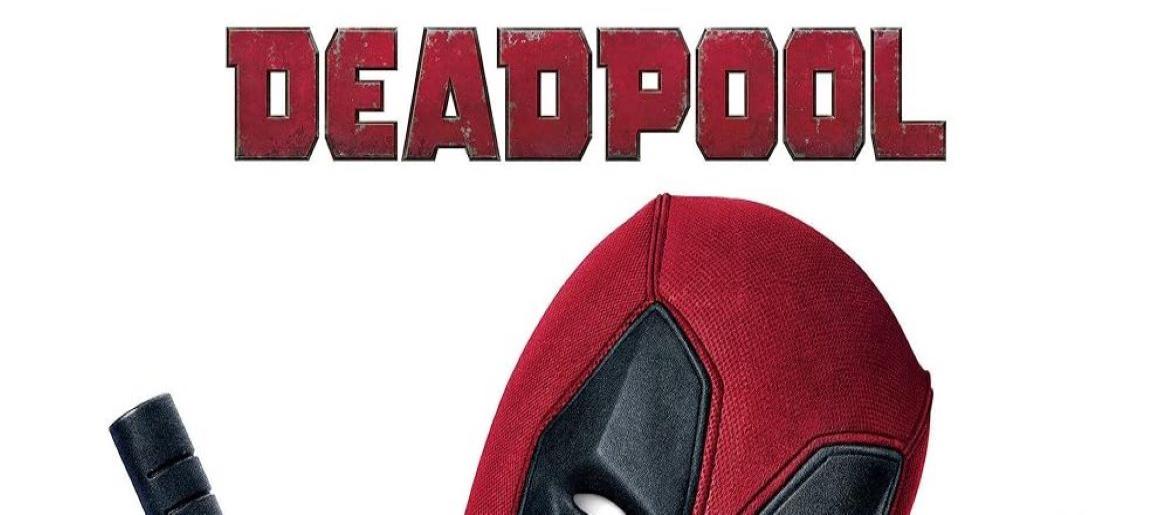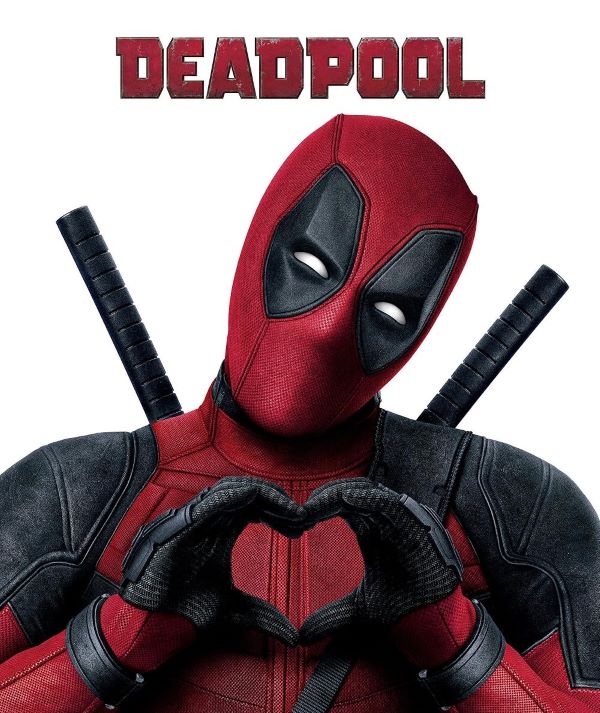
Deadpool Font
What Font is Deadpool?
The Deadpool Font used in the movie’s title is replicated by the typeface Rogue Hero and Deadpool movie fonts. This bold, rugged sans-serif captures the irreverent and aggressive attitude of the character with its strong strokes and dynamic letterforms. It’s a great match for designs inspired by the film’s tone — edgy, fun, and a little bit chaotic.